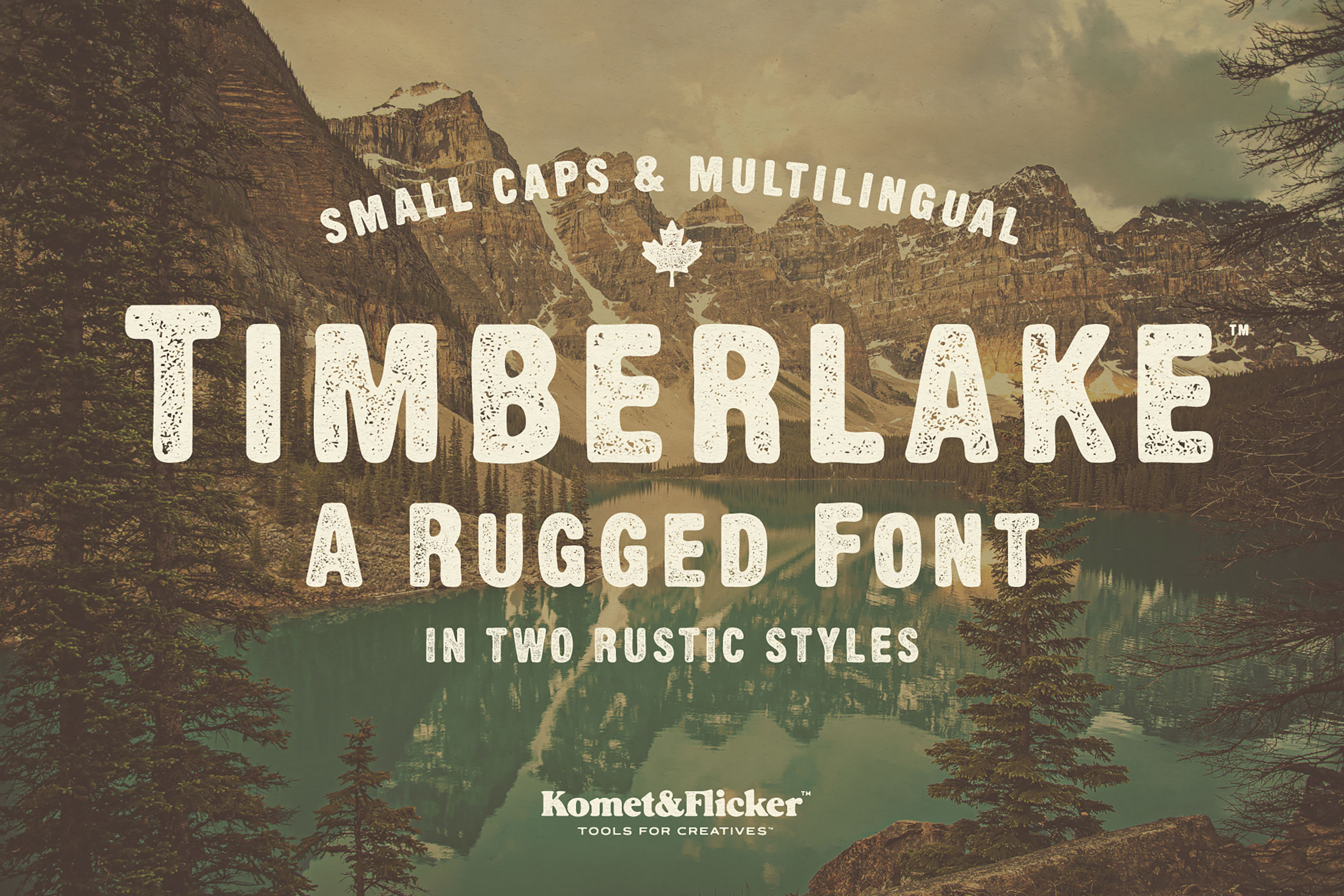
Timberlake - A Rustic & Rugged Font
Ascend to Timberlake, the small caps font that embodies the spirit of outdoor adventure! This font’s rugged charm brings a rustic, well-worn feel to your designs, infusing them with a sense of authenticity that resonates with outdoor enthusiasts and wanderers alike.
This font comes in two vintage styles, each designed to give you complete control over the mood of your project:
Rustic – Soft, rounded corners that feel weathered, warm, and organic.
Stamp – A rough, gritty texture reminiscent of inked impressions and old-school letterpress.
Plus, Timberlake comes with a unique set of 20 custom connecting words (10 words in two styles), designed to add seamless flow to your typography.
Whether you’re crafting branding for outdoor-themed projects, cozy coffee shops, vintage apparel, or artisanal beer and spirits labels, Timberlake is your go-to choice. Its rustic letterforms evoke the great outdoors, making every word feel like an invitation to explore.
- Full A-Z uppercase basic latin characters
- Select European specific characters
- Numbers, punctuation, and select symbols
- Set of 20 total custom connecting word glyphs (10 words in two styles)